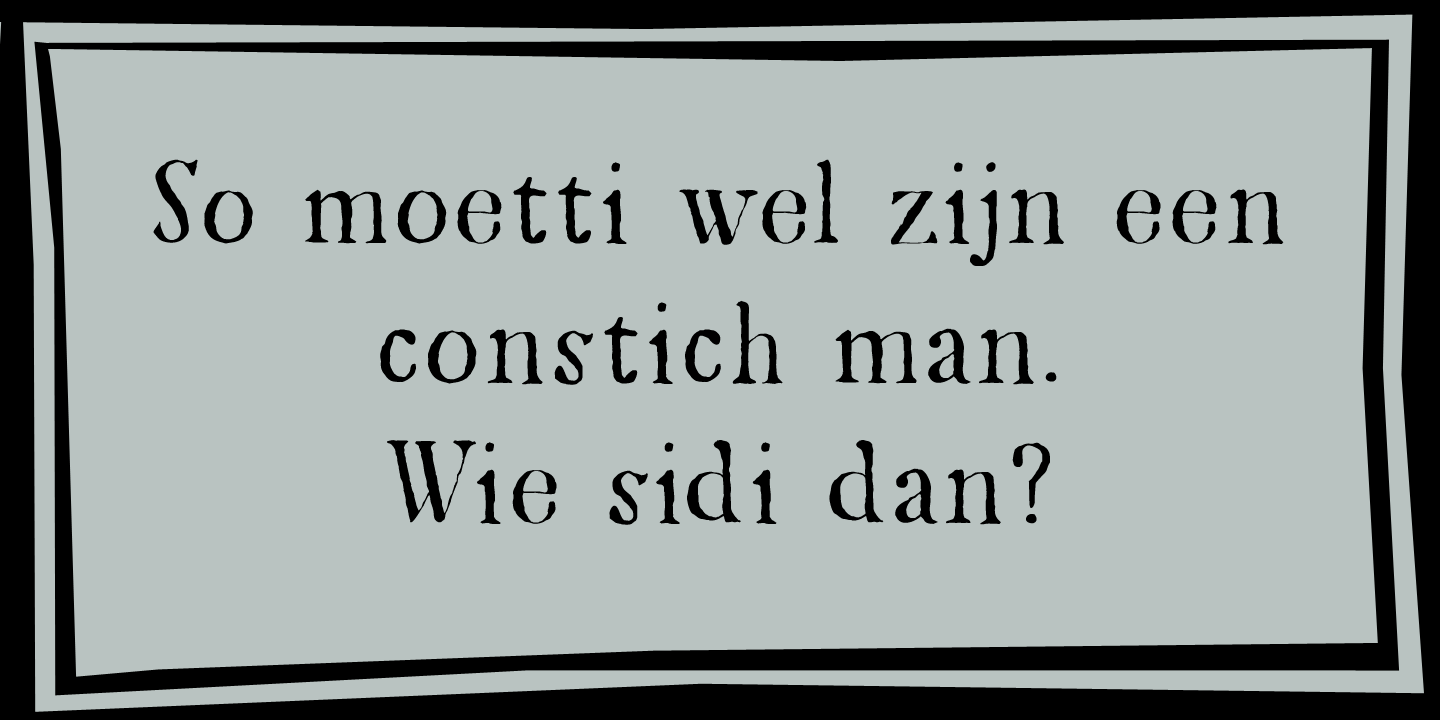
About Mariken
Mariken van Nieumeghen is a late medieval Dutch text from the early 16th century. The protagonist of the play (a young maid called Mariken) spends seven years with the devil (called Moenen), after which she is miraculously released. Mariken font is a…